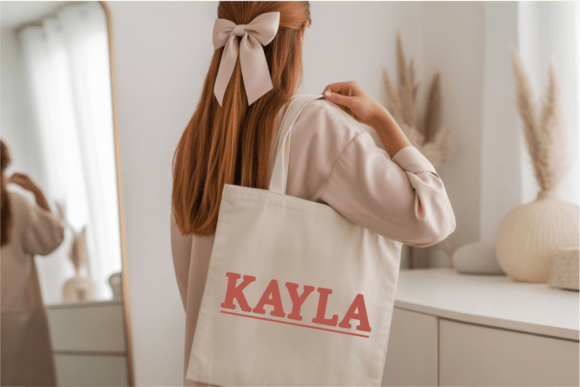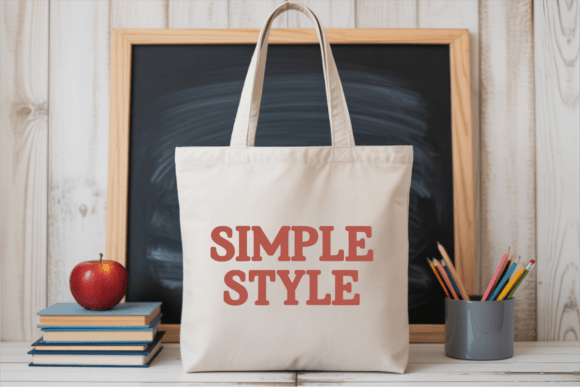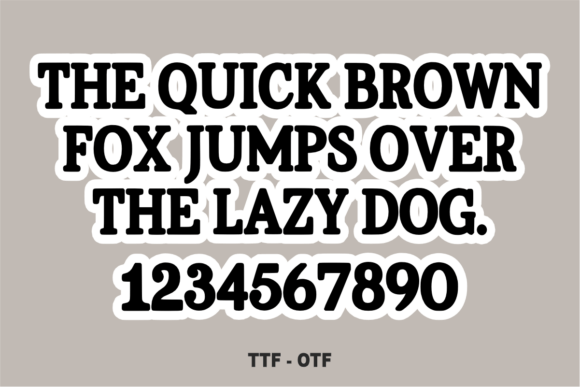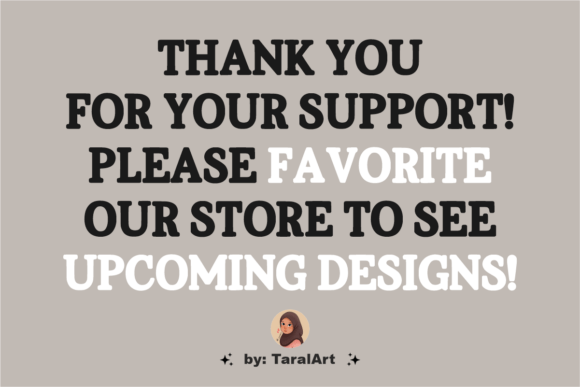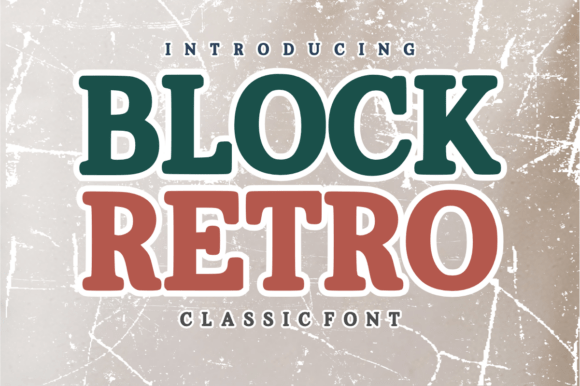
Step into the Timeless Era of Design with Block Retro Font
Are you looking for a font that captures the bold, confident spirit of mid-century advertising? Look no further than the Block Retro font, a classic display typeface that brings a sense of nostalgia and “vintage cool” to any modern project.
What is Block Retro Font?
The Block Retro font is a typeface that features thick, rounded slabs with a clean outline effect, making it an excellent choice for varsity-style apparel, retro cafe branding, and classic movie titles. Its balanced geometry makes it incredibly easy to read and work with across various mediums, from digital platforms to print materials.
Characteristics of Block Retro Font
The Block Retro font boasts a range of characteristics that make it a versatile and stylish choice for designers and crafters. Some of its key features include:
• Thick, rounded slabs: The font’s thick, rounded slabs give it a bold and confident look that’s perfect for making a statement.
• Clean outline effect: The clean outline effect adds a touch of sophistication to the font, making it suitable for a wide range of applications.
• Balanced geometry: The font’s balanced geometry ensures that it’s easy to read and work with, even at smaller sizes.
Use Cases for Block Retro Font
The Block Retro font is a versatile typeface that can be used in a variety of contexts, including:
• Varsity-style apparel: The font’s bold, confident look makes it perfect for varsity-style apparel, such as t-shirts, hoodies, and hats.
• Retro cafe branding: The font’s retro vibe makes it an excellent choice for retro cafe branding, including logos, menus, and signage.
• Classic movie titles: The font’s classic look makes it suitable for use in classic movie titles, adding a touch of nostalgia and sophistication to any film.
• Vintage “badge” logos: The font’s bold, geometric shape makes it perfect for use in vintage “badge” logos, adding a touch of heritage and authenticity to any brand.
• Bold website headers: The font’s clean outline effect and balanced geometry make it an excellent choice for bold website headers, adding a touch of sophistication and style to any website.
Pairing Block Retro Font with Other Typefaces
The Block Retro font can be paired with a range of other typefaces to create a unique and stylish look. Some pairing suggestions include:
• Thin script fonts: Pairing the Block Retro font with a thin script font creates a sophisticated “high-low” contrast that’s perfect for adding a touch of elegance to any design.
• Complementary serif fonts: Pairing the Block Retro font with a complementary serif font creates a classic, timeless look that’s perfect for use in a wide range of applications.
Why Choose Block Retro Font?
So why choose the Block Retro font for your next design project? Here are just a few reasons:
• Timeless appeal: The Block Retro font has a timeless appeal that ensures it will remain stylish and relevant for years to come.
• Versatility: The font’s versatility makes it suitable for use in a wide range of applications, from digital platforms to print materials.
• Easy to read and work with: The font’s balanced geometry makes it incredibly easy to read and work with, even at smaller sizes.
In conclusion, the Block Retro font is a classic display typeface that captures the bold, confident spirit of mid-century advertising. Its thick, rounded slabs, clean outline effect, and balanced geometry make it an excellent choice for a wide range of applications, from varsity-style apparel to classic movie titles. Whether you’re a designer or crafter, the Block Retro font is a versatile and stylish choice that’s sure to bring a sense of nostalgia and “vintage cool” to any modern project.